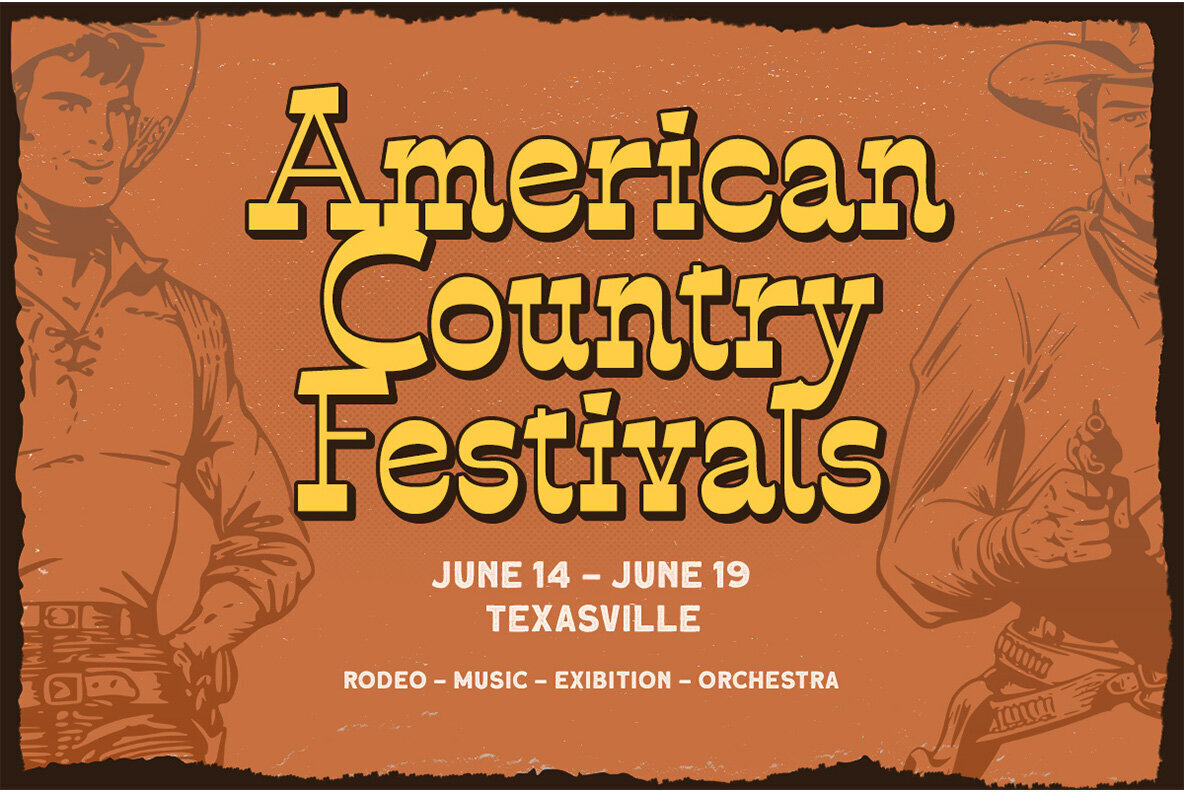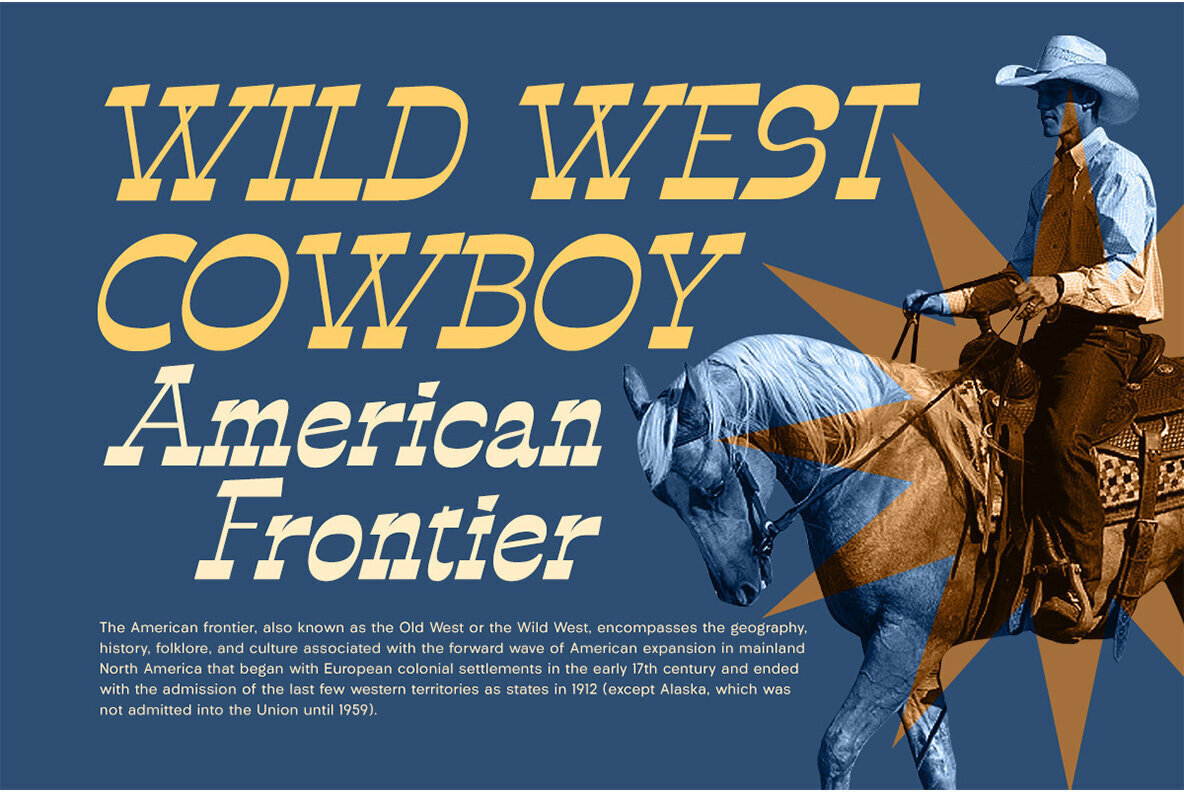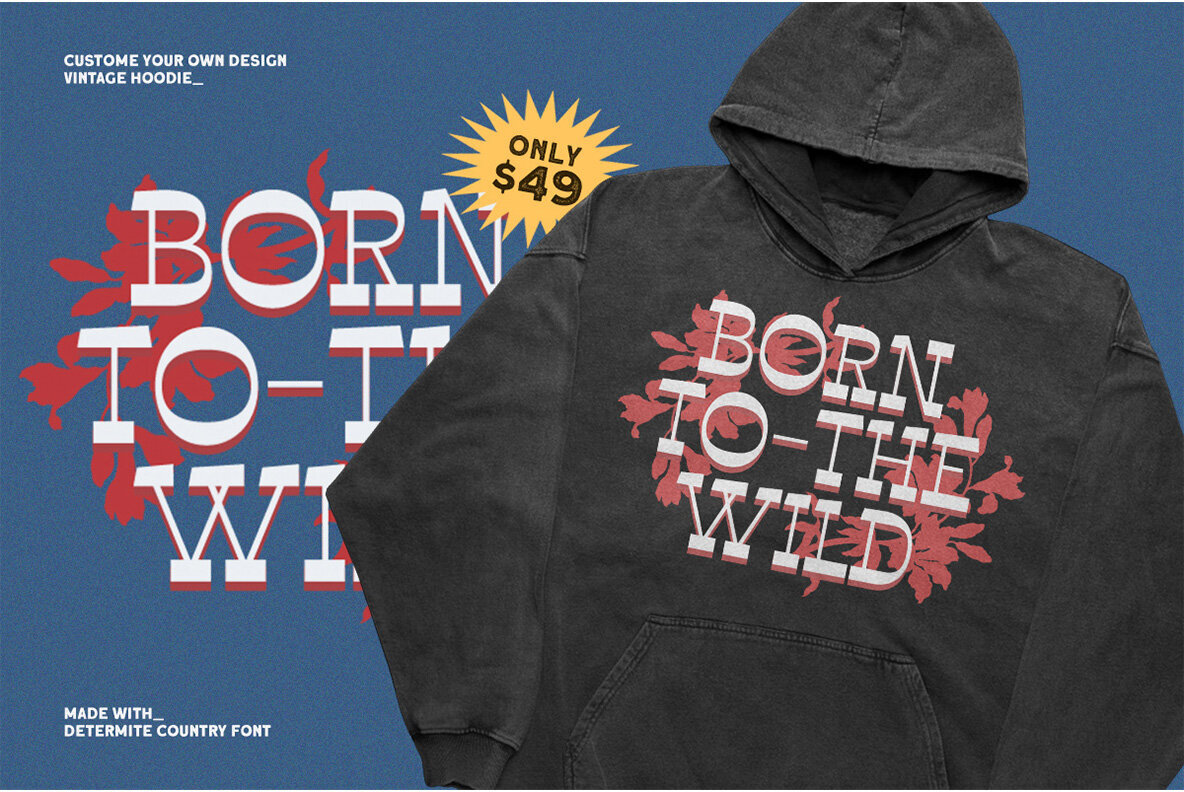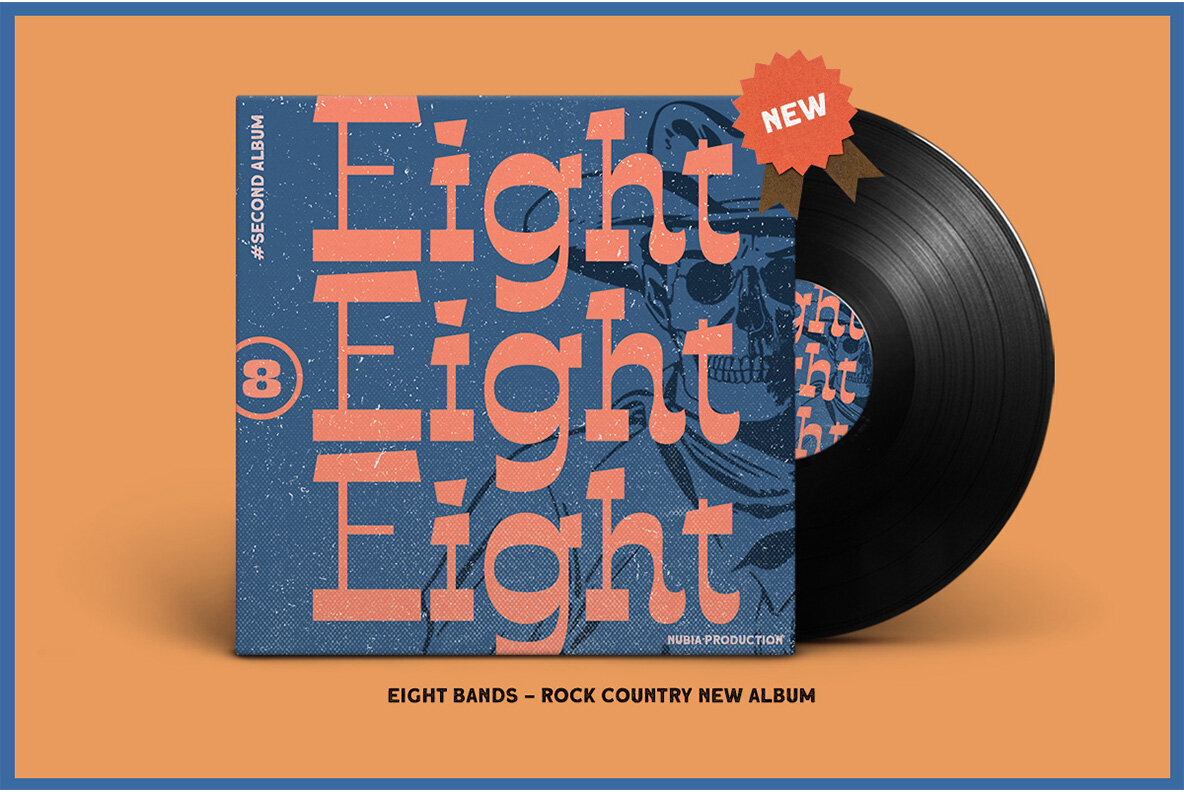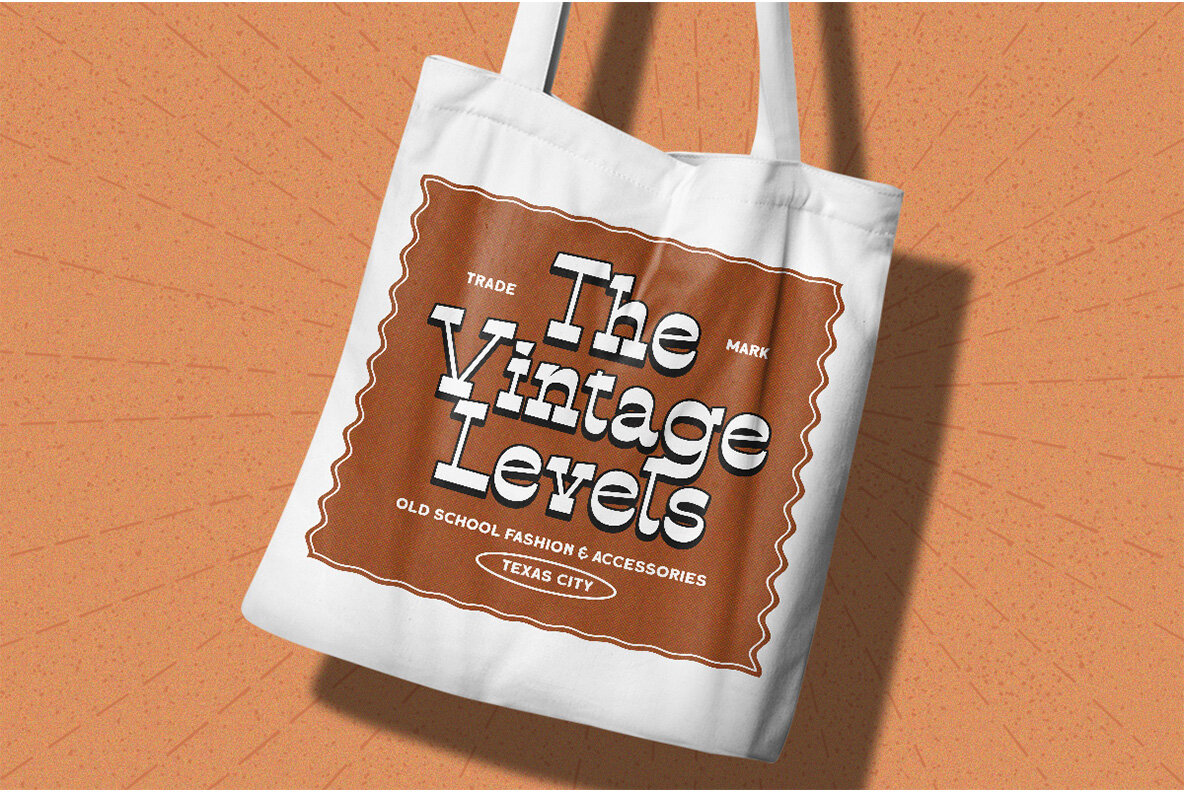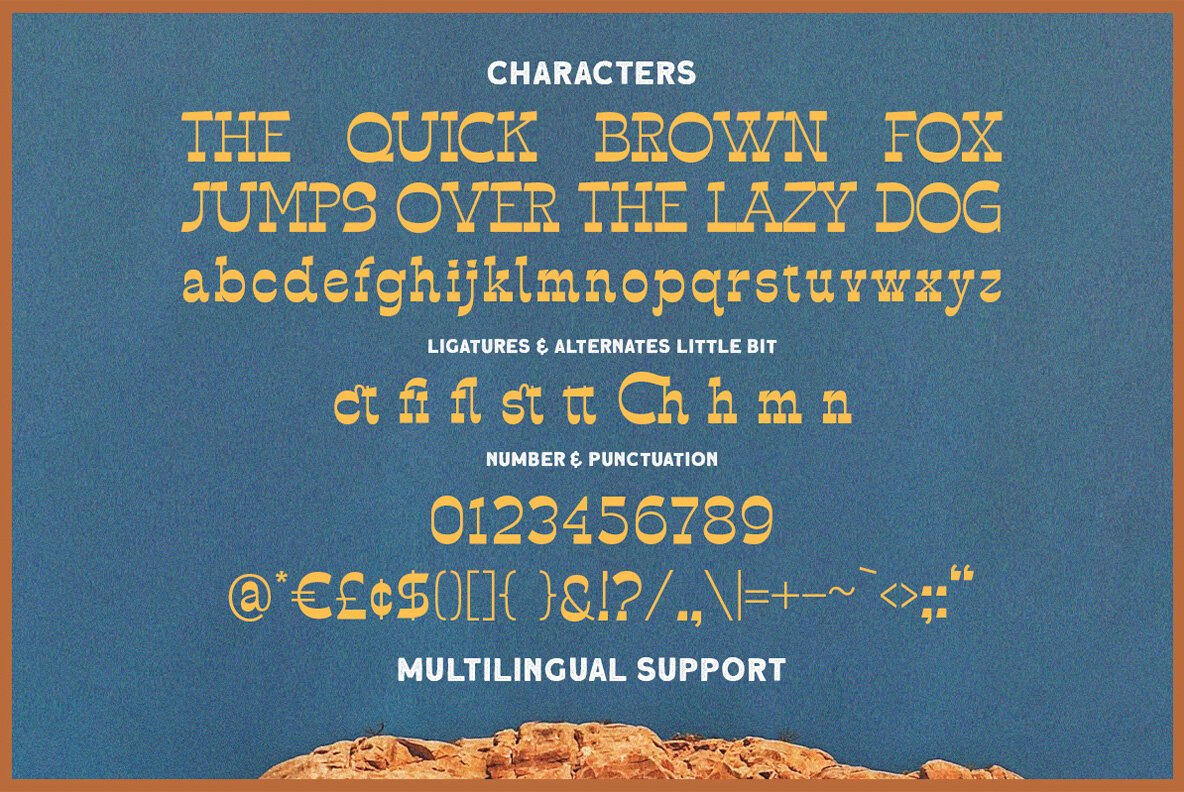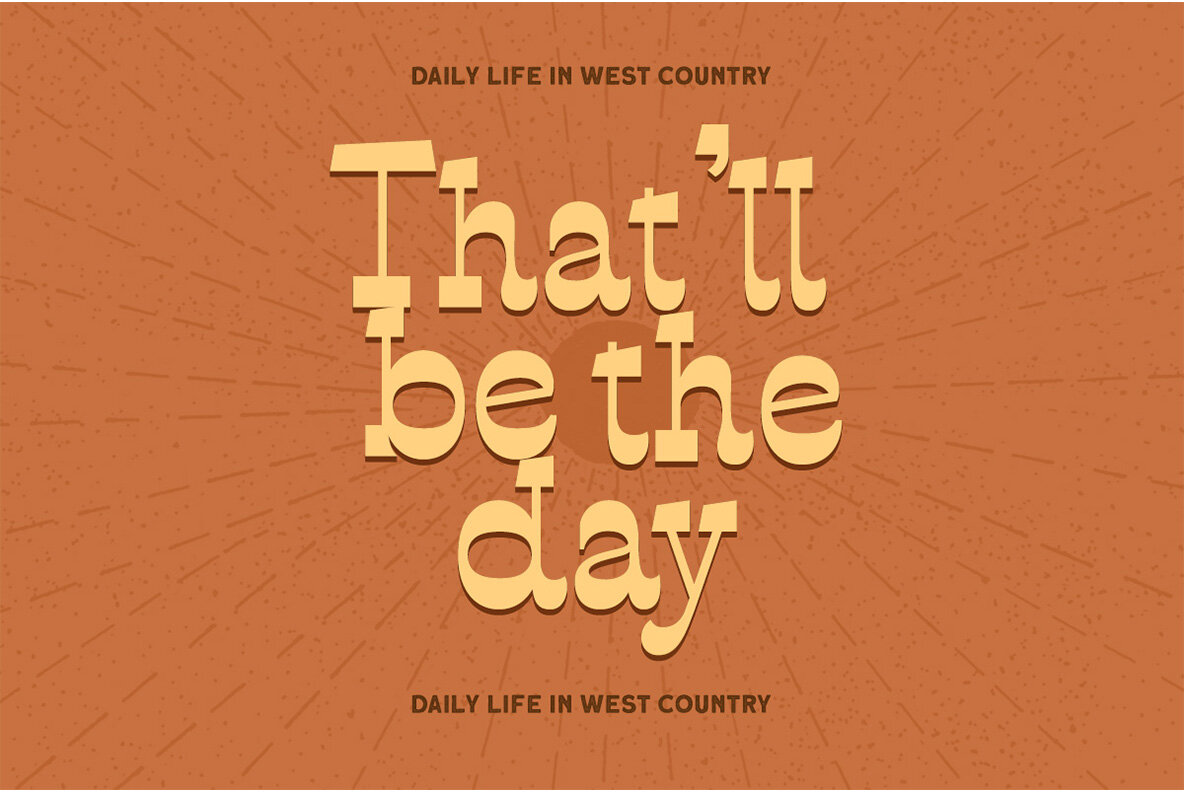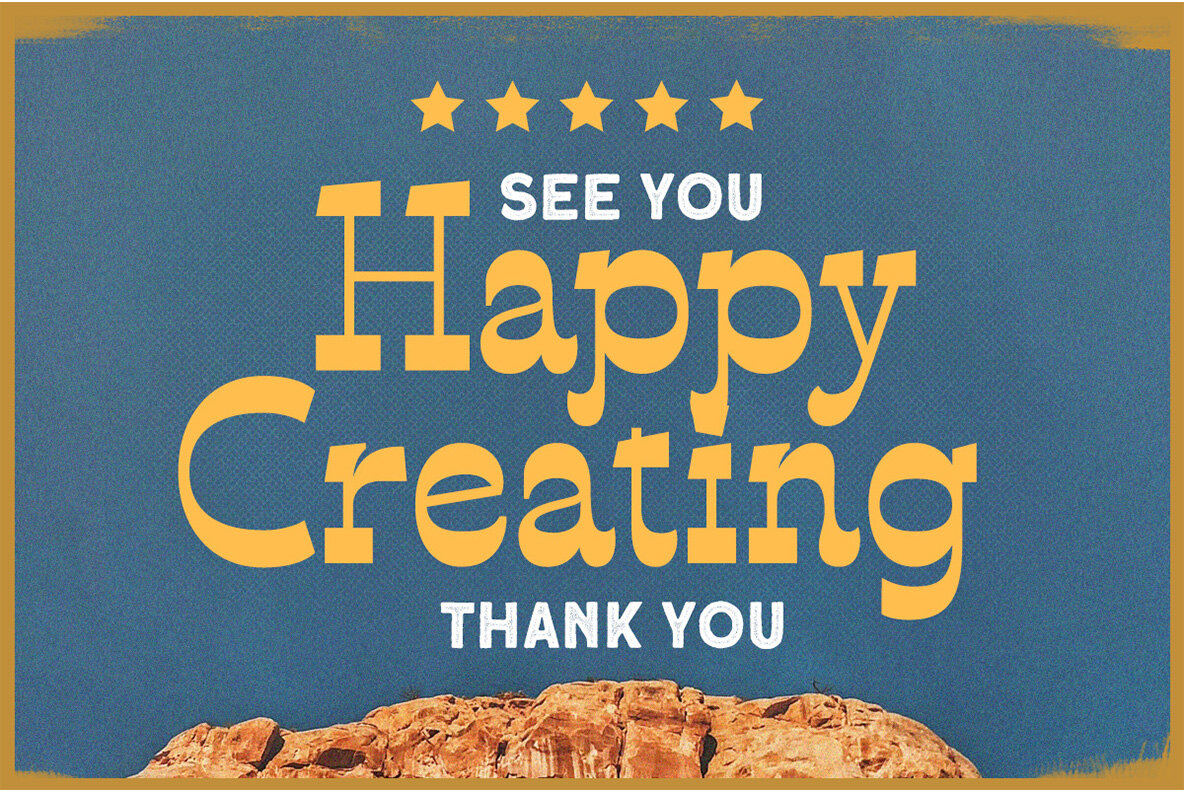
Determite Country Font
Introducing, Determite - A Western Display Typeface.
The contrast between its bold lines and soft curves make this font look different from the crowd while still being able to stand out in any design need! Suitable for use with a touch of classic western style such as logos or other informal forms like party invitations; it's perfect when you want your logo noticed on something eye catching that will caught people’s attention without noise distractions (like most advertisements).
- lowercase and uppercase
- regular and slanted
- numbers and punctuation
- multilingual